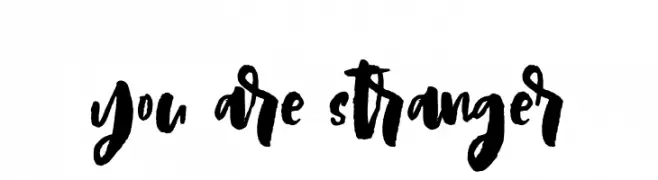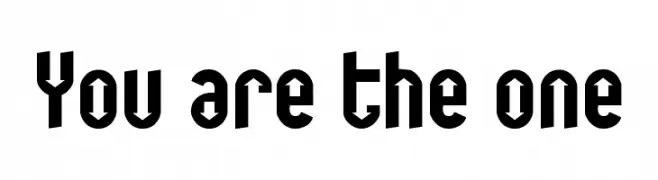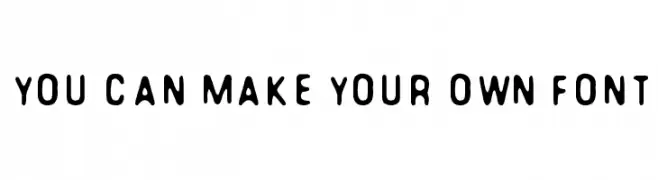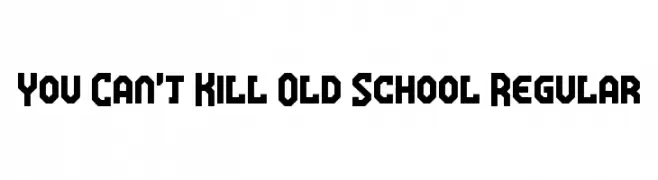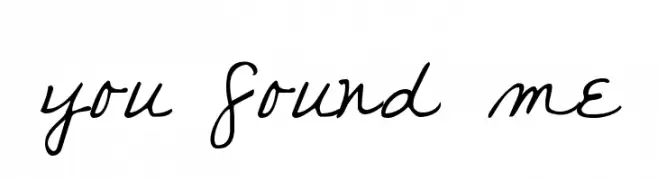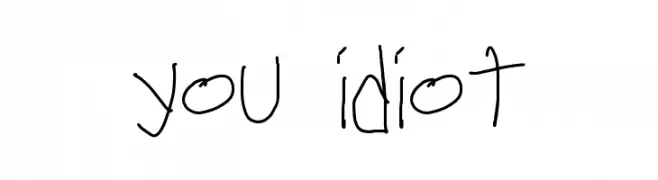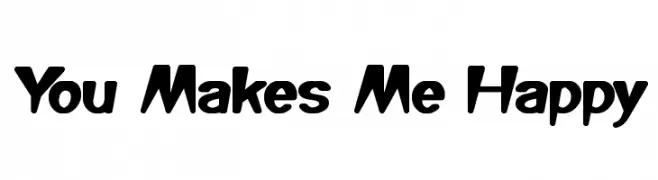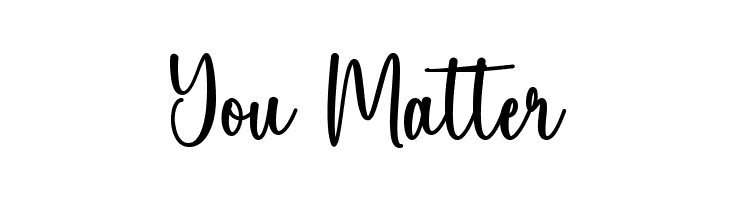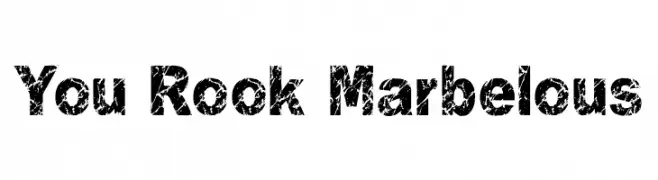
A bold, expressive handwritten font with brush-like strokes.
A bold, geometric font with angular lines and decorative cutouts.
A bold, handwritten font with a playful and energetic style.
A bold, geometric font with sharp angles and a blocky appearance.
A bold, geometric font with a strong, angular design.
Loose, playful handwritten style with irregular strokes.
A bold, playful font with rounded edges and a slightly italicized style.
A bold, distressed font with a marbled texture for a rugged look.
A bold, distressed font with a textured, rugged appearance.
A whimsical font with characters designed as expressive cartoon eyes.
A playful serif font with crown embellishments and a mix of bold and cursive styles.
A playful, textured display font with unique patterns in each letter.
A casual, handwritten font with a playful and informal style.
A playful, handwritten font with smooth, rounded edges and a casual style.
An ornate and decorative font with intricate, vintage-inspired patterns.
A bold, playful font with rounded, hand-drawn style characters.
A dynamic font with a mix of bold and thin strokes, offering a creative and artistic look.
A playful, bold, and rounded handwritten font with a casual style.
A sophisticated script font with fluid, cursive strokes and elegant curves.
A playful, rounded font with thick strokes and smooth curves.
A playful and elegant handwritten font with smooth, flowing curves.
A playful, handwritten cursive font with smooth, flowing strokes.
A bold, grungy font with a distressed, hand-painted appearance.
A bold, distressed font with a grunge aesthetic and rough, uneven strokes.
A modern, geometric font with elongated, narrow characters and a sleek design.
A playful, handwritten font with bold, rounded characters and a youthful flair.